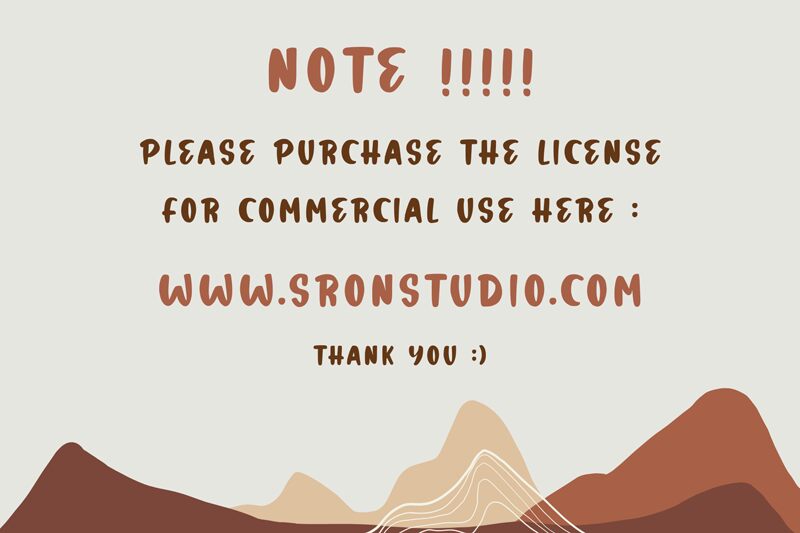
Paris Mountain
Paris Mountain, crafted by sronstudio, stands out with its extra-bold, handwritten style that exudes a strong personal touch. This font boasts robust strokes and a flowing rhythm that mimics the authenticity of ink on paper, offering an aesthetic blend of contemporary boldness with classic handwriting nuances. The deliberate irregularities in its characters suggest a casual elegance and warmth, making it perfect for projects requiring a touch of personality without sacrificing visual impact.
The versatility of Paris Mountain lies in its ability to marry legibility with character. It's an excellent choice for branding, advertising campaigns, product packaging, and editorial work where a distinct voice is paramount. Whether emboldening headlines or accentuating invitations, this font's charm enhances the message it carries. Embrace Paris Mountain for when your design needs to make a statement as confident and stylish as it is unique.